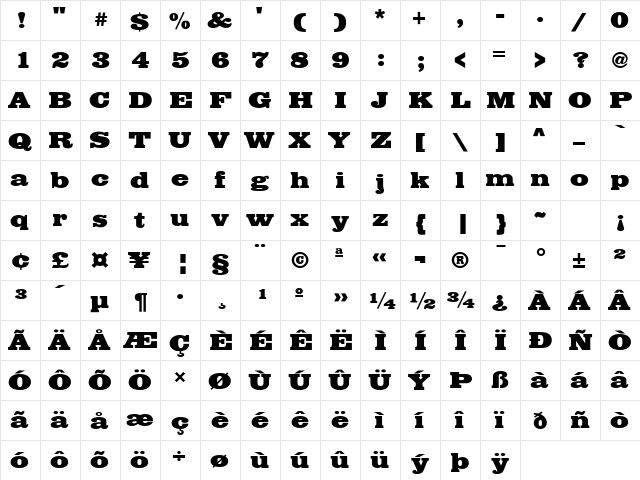
Dynasty Black Ext. Regular Font Preview
Dynasty Black Ext. Regular
Dynasty Black Ext. Regular Font Details
Design Context for Dynasty Black Ext. Typeface
Dynasty Black Ext. offers clean, dependable letterforms without strong stylistic allegiance, making it a practical choice for designers who need flexibility.
Pro Tip: Use Dynasty Black Ext. in both headline and body roles to test its range before committing to a single application.